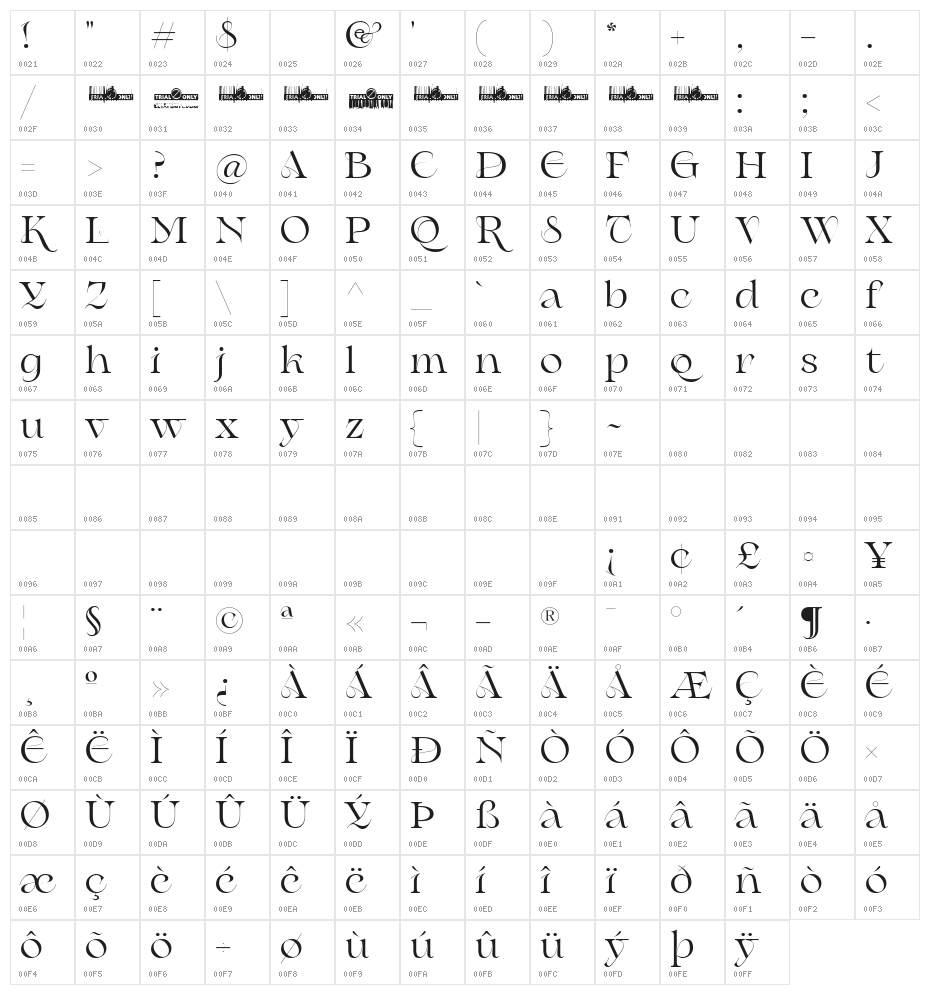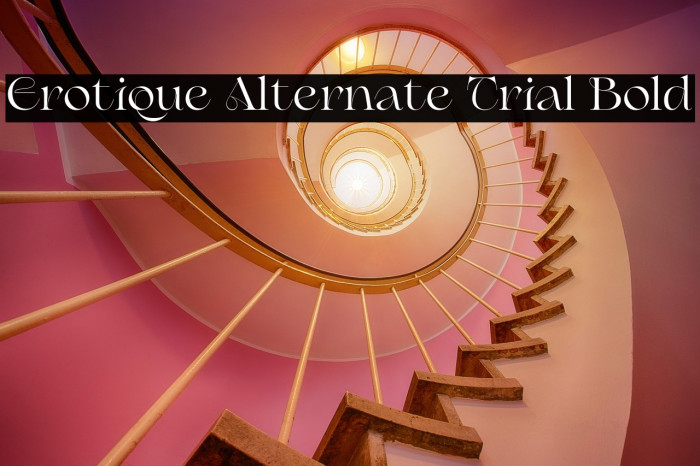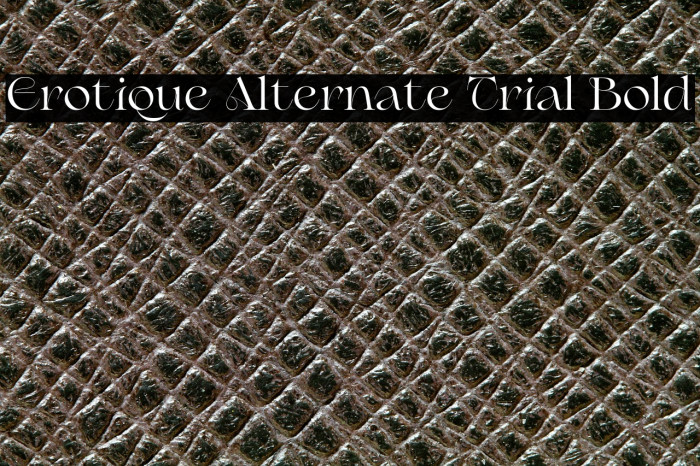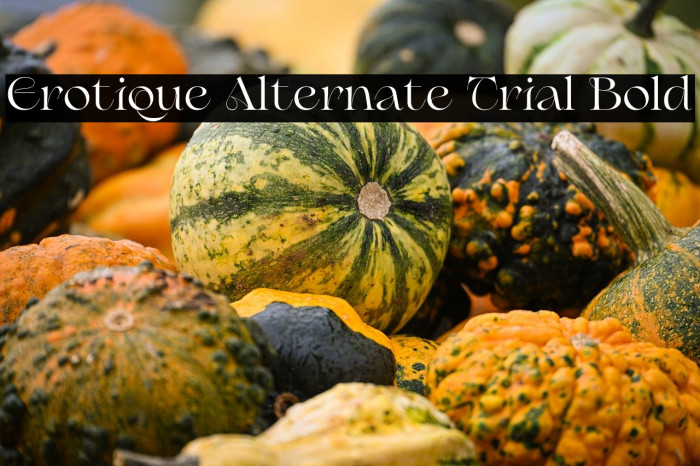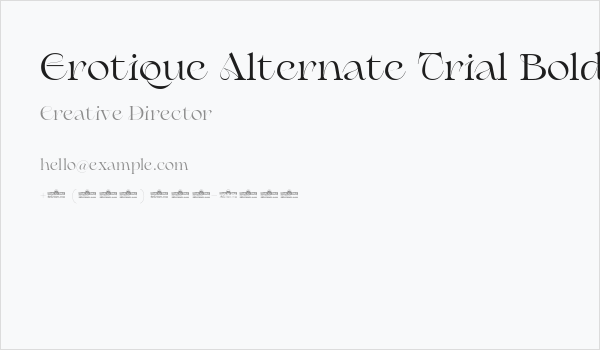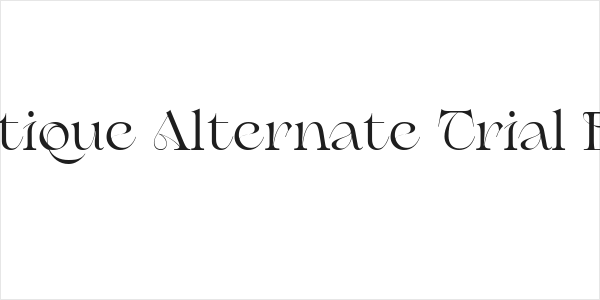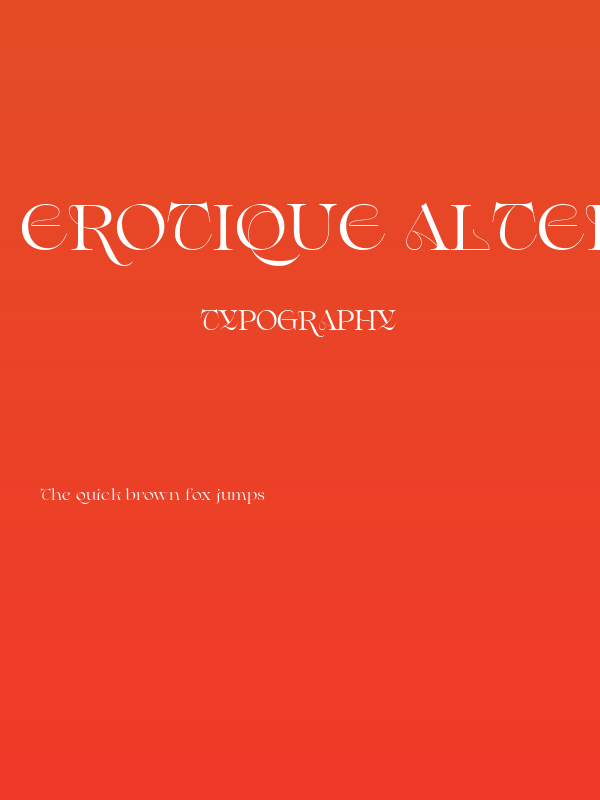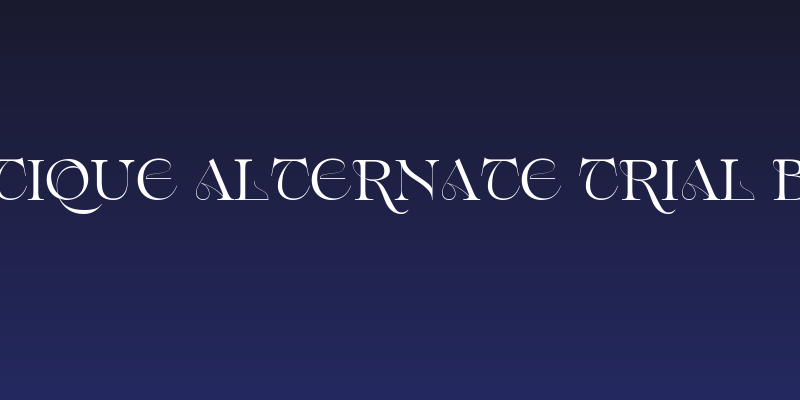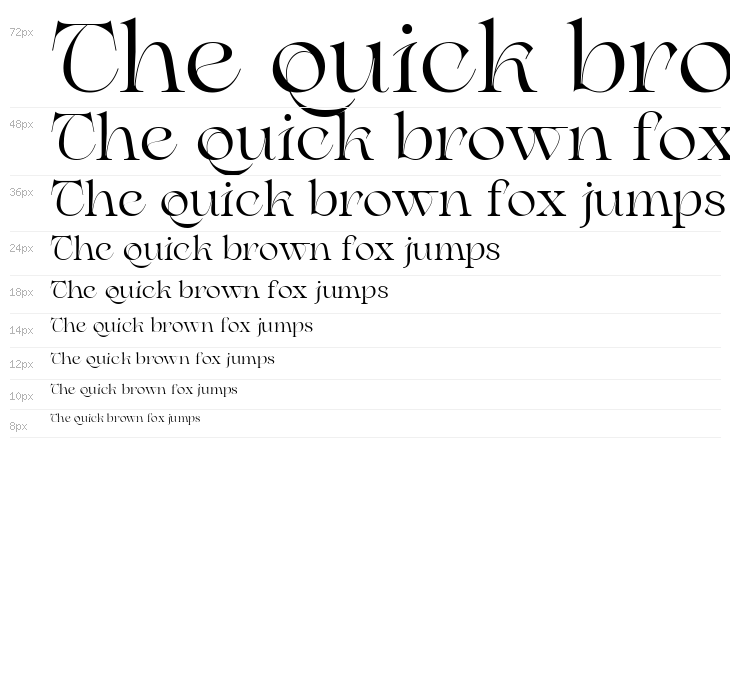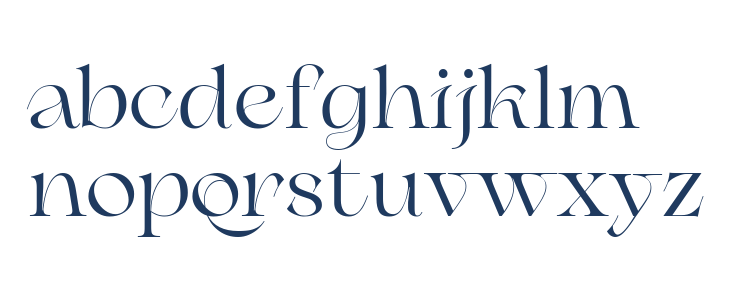
Erotique Alternate Trial Bold Font
Erotique Alternate Trial Bold Description
This font features an elegant and sophisticated design with a unique blend of modern and classic elements. The uppercase letters are characterized by their decorative swirls and flourishes, adding a touch of luxury and flair. The lowercase letters maintain a more traditional serif style, providing a harmonious balance between the ornate and the conventional. The numerals and special characters continue this theme, with intricate details that enhance the overall aesthetic. This font is perfect for projects that require a touch of elegance and sophistication.